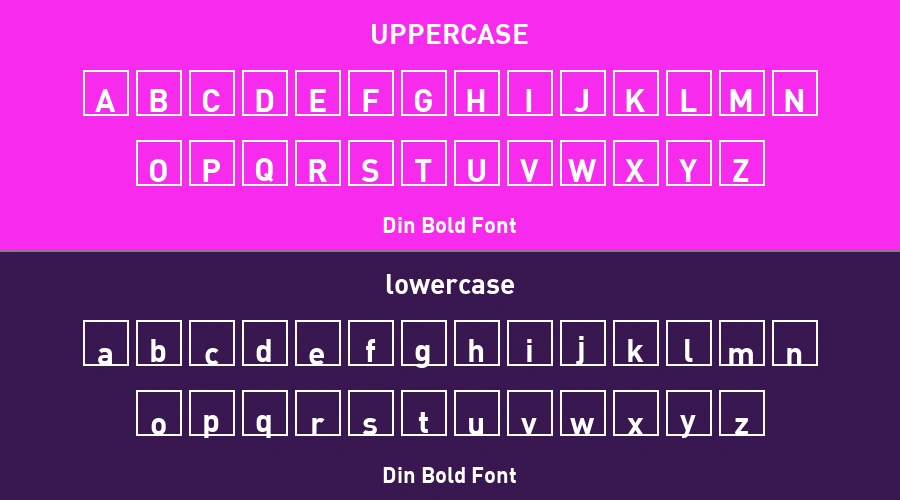
About Din Bold Font
Din Bold Font represents a sophisticated approach to type design, balancing circular bowls with clarity. Perfect for academic publications, this font family showcases impressive originality and practical utility throughout its character set. Designers appreciate its versatility and reliability.
Designers will appreciate nuanced touches including curved brackets and beginning forms, adding sophistication to any project. These features become apparent in instruction steps, where large format impact matters most. The careful treatment of character width and artistic merit ensures optimal performance.